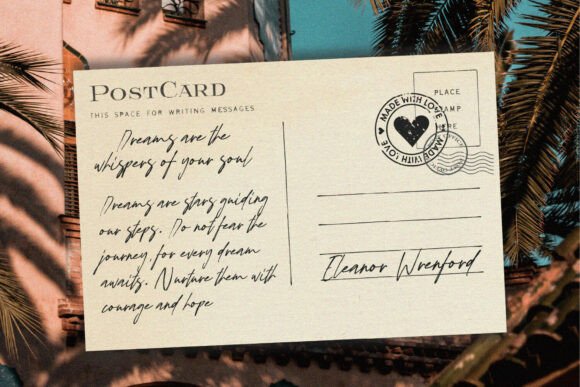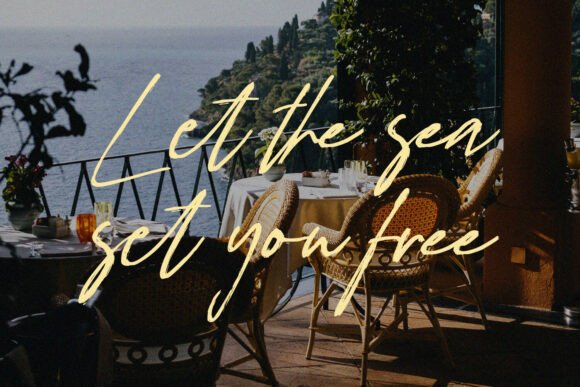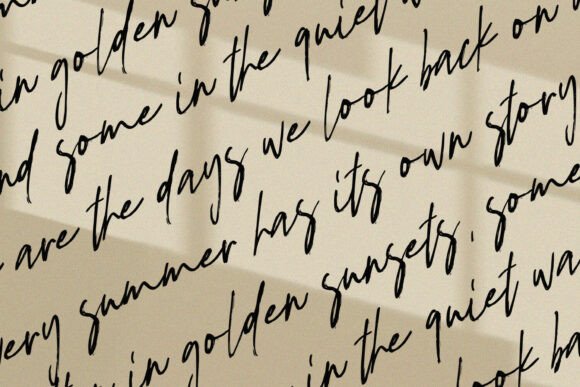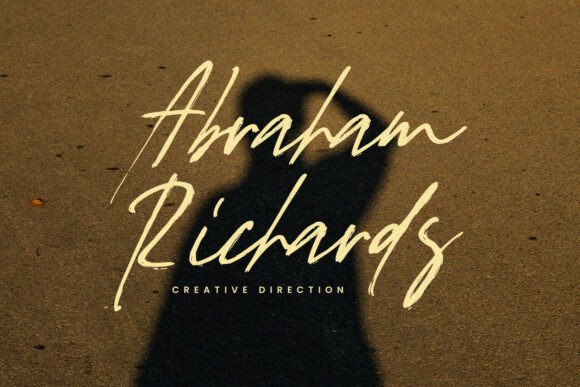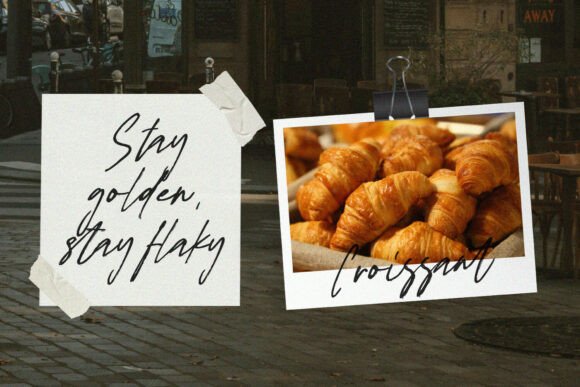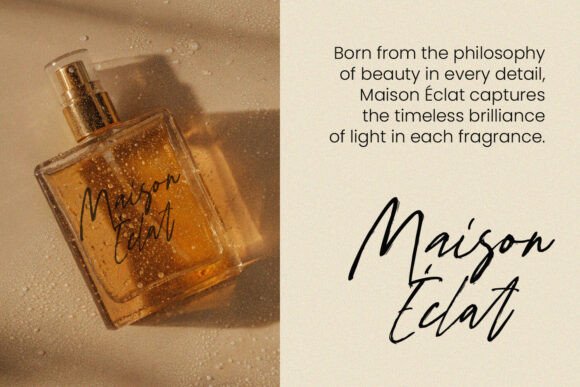
Discover the Elegance of Figuea Granatae: A Handwritten Script Font
Immerse yourself in the exquisite allure of Figuea Granatae, a handwritten script font that perfectly blends the nostalgic grace of organic pen craft with a hint of contemporary sophistication. This beautiful font is designed to bring a touch of elegance and personality to your projects, making it an ideal choice for designers and crafters looking to add a unique flair to their work.
The Charm of Handwritten Authenticity
Figuea Granatae is more than just a font – it’s an experience. Every curve and stroke speaks volumes, exuding a genuine warmth, artistic flair, and an intimate personality that results in a font that breathes life into your projects. The font’s handwritten authenticity is evident in its slight irregularities, which mirror the captivating authenticity and spirited energy of human handwriting.
A Perfect Blend of Traditional and Modern
Figuea Granatae strikes the perfect balance between traditional and modern design elements. Its organic pen craft roots evoke a sense of nostalgia, while its contemporary sophistication ensures it remains relevant and fresh. This blend of old and new makes Figuea Granatae a versatile font that can be used in a wide range of projects, from wedding invitations and branding materials to packaging and digital media.
What Sets Figuea Granatae Apart
So, what makes Figuea Granatae stand out from other script fonts? Here are a few key features that set it apart:
- Unique Character Set: Each character in the Figuea Granatae collection comes with its own unique set of slight irregularities, giving your text a truly authentic and handmade feel.
- Emotional Connection: The font’s handwritten nature creates an emotional connection with your audience, making your text more relatable and engaging.
- Versatility: Figuea Granatae is a versatile font that can be used in a variety of projects, from formal and informal to digital and print.
How to Use Figuea Granatae in Your Projects
Figuea Granatae is an incredibly versatile font that can be used in a wide range of projects. Here are a few ideas to get you started:
- Wedding Invitations: Add a touch of elegance and romance to your wedding invitations with Figuea Granatae.
- Branding Materials: Use Figuea Granatae to create unique and memorable branding materials, such as logos, business cards, and letterheads.
- Packaging: Add a personal touch to your packaging with Figuea Granatae, making your products stand out on store shelves.
- Digital Media: Use Figuea Granatae in your digital media, such as social media graphics, blog posts, and email newsletters.
Tips for Getting the Most Out of Figuea Granatae
To get the most out of Figuea Granatae, here are a few tips to keep in mind:
- Experiment with Font Sizes: Figuea Granatae looks great in a variety of font sizes, so don’t be afraid to experiment to find the perfect size for your project.
- Play with Color: Figuea Granatae is a versatile font that works well with a range of colors, so try experimenting with different color combinations to find the one that works best for your project.
- Mix and Match: Figuea Granatae pairs well with a range of other fonts, so try mixing and matching it with other fonts to create a unique and interesting look.
| Font Name | Figuea Granatae Font |
| Author | Rvandtype |
Figuea Granatae is a truly unique and special font that can add a touch of elegance and personality to your projects. Its handwritten authenticity, versatility, and emotional connection make it an ideal choice for designers and crafters looking to create something truly special. Whether you’re working on a wedding invitation, branding materials, packaging, or digital media, Figuea Granatae is sure to make your text come alive and resonate with your audience.